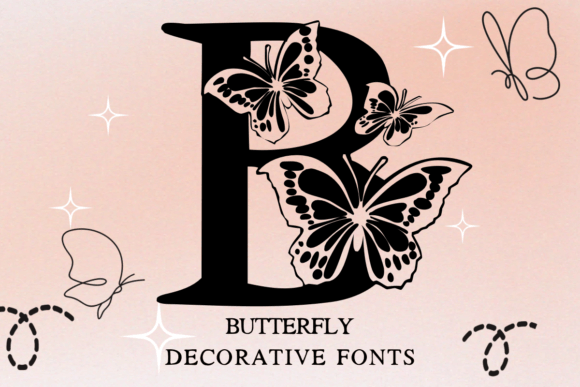
The Whimsical World of Butterfly Font
I’ll never forget the day I stumbled upon the Butterfly Font while working on a whimsical garden-themed project for a client. I was on a mission to find the perfect font that would bring a touch of magic to my design. As I scrolled through my font library, I came across this delightful font where every letter gets its own special butterfly friend. It was love at first sight! In this article, I’ll share my experience with the Butterfly Font, its features, and how to make the most of it in your designs.
A Personal Review of Butterfly Font
So, what makes the Butterfly Font so special? Let’s dive into the good stuff! 😊
- ✨ Unique and Whimsical: Each letter is adorned with a delicate butterfly, adding a playful touch to your text.
- ✅ Elegant and Refined: Despite its whimsical nature, the font maintains an air of sophistication, making it perfect for a variety of design projects.
- 🌈 Customizable: With OpenType features and glyphs, you can experiment with different butterfly styles and arrangements.
Of course, no font is perfect, and the Butterfly Font has a few quirks:
- 🤔 Limited Use Cases: While the font is stunning, it may not be suitable for body text or formal documents.
- ⚠️ Glyph Limitations: Some users have reported issues with certain glyphs not displaying correctly.
The Butterfly Font was designed by a team of creatives who wanted to bring a touch of whimsy to the world of typography. Inspired by the beauty of nature and the elegance of butterflies, they crafted a font that would add a playful twist to any design project.
| What is the Butterfly Font best used for? | The Butterfly Font is perfect for creative projects, such as invitations, greeting cards, and social media graphics. |
| Is the Butterfly Font suitable for body text? | While the font is beautiful, it’s recommended to use it for headings and titles rather than body text. |